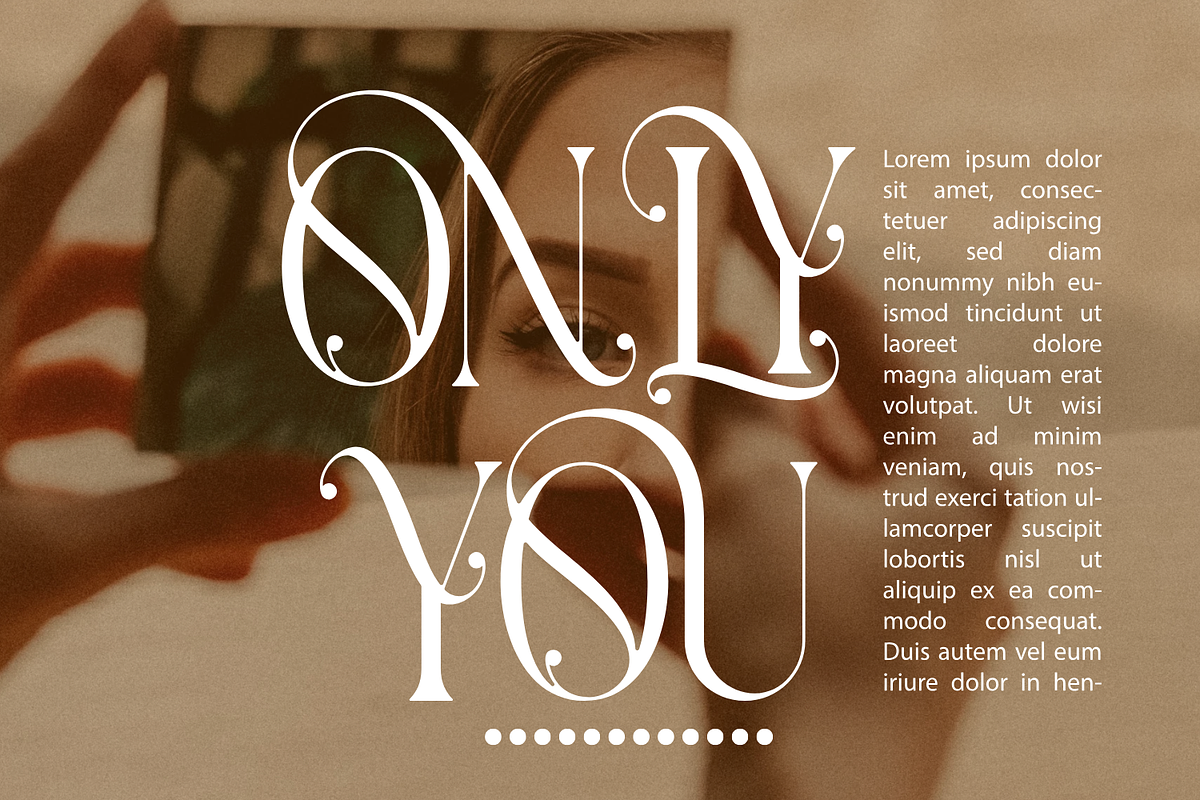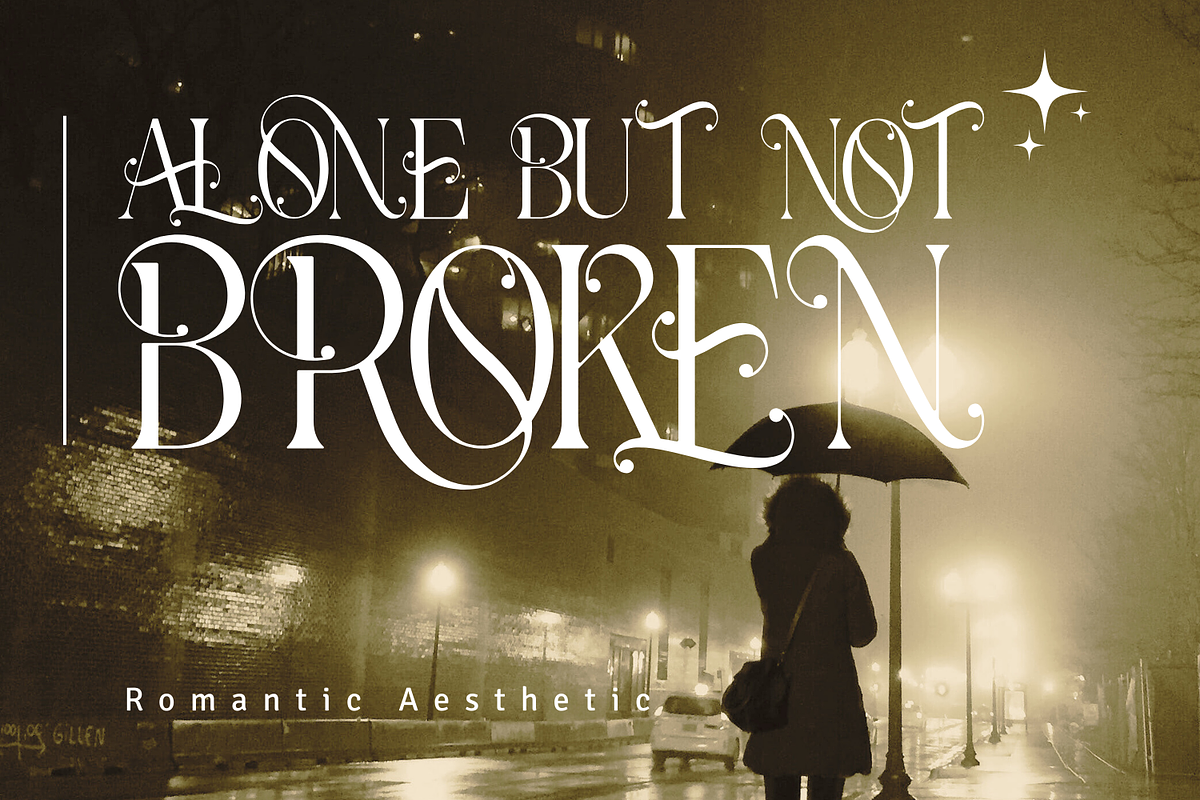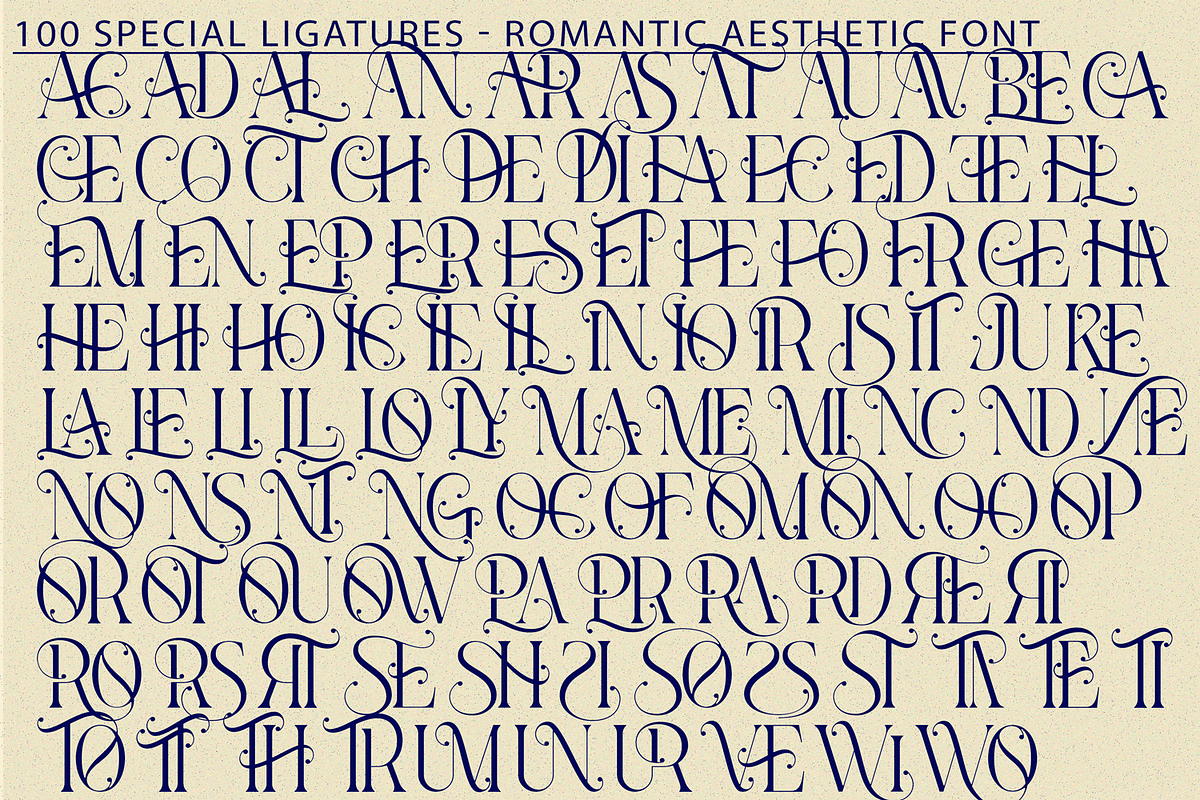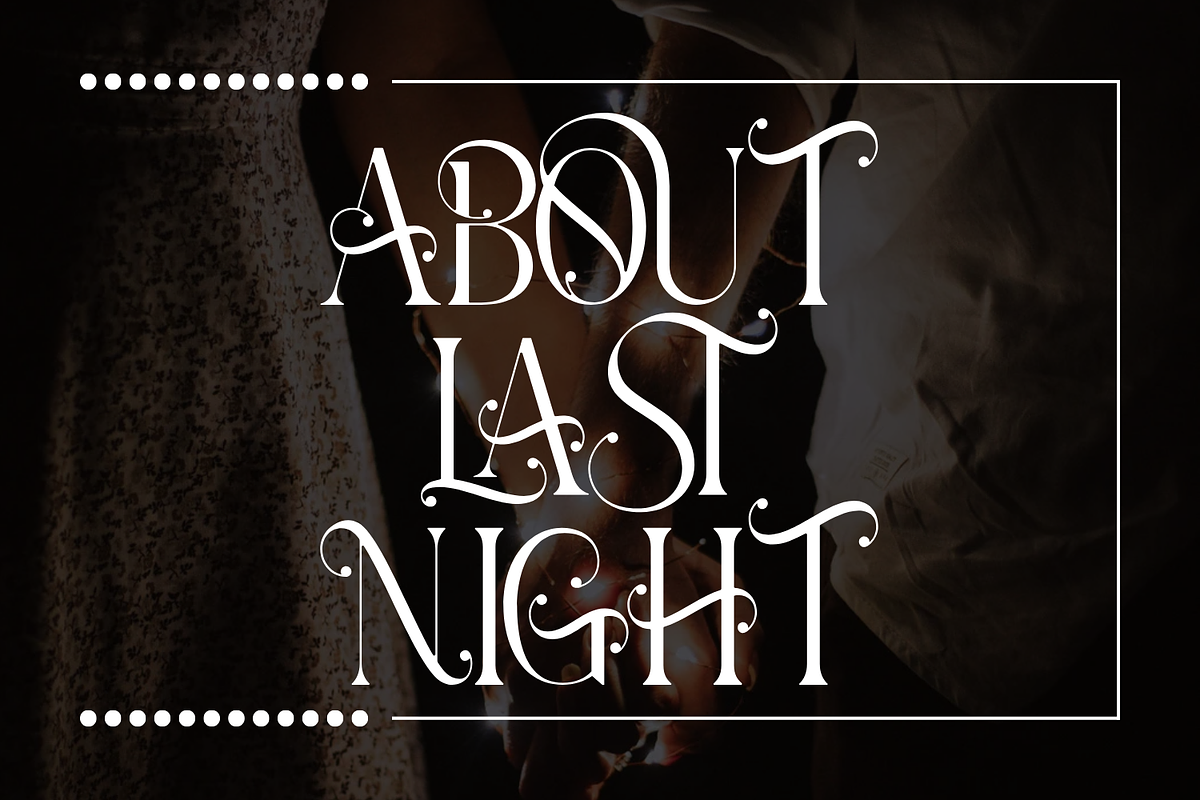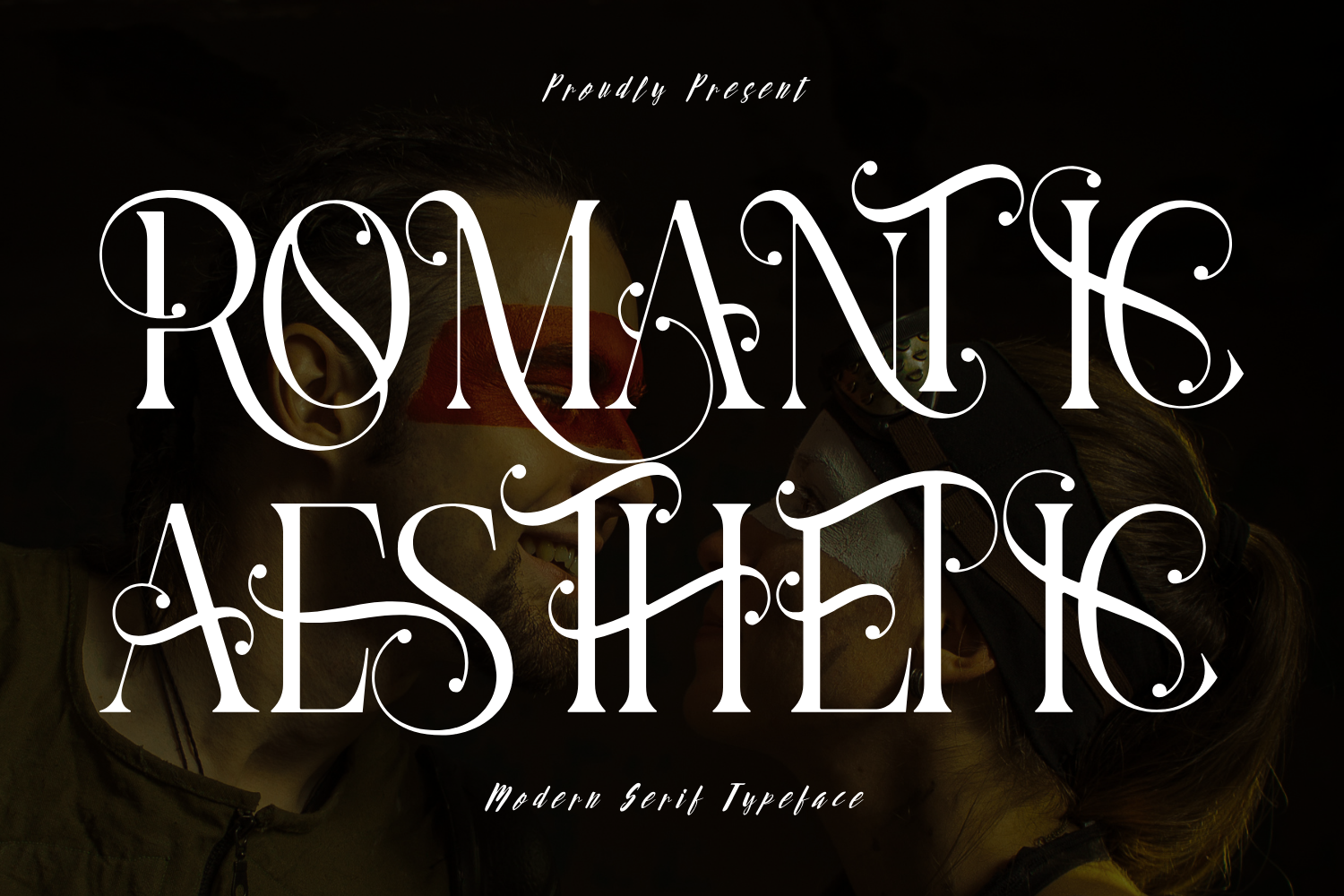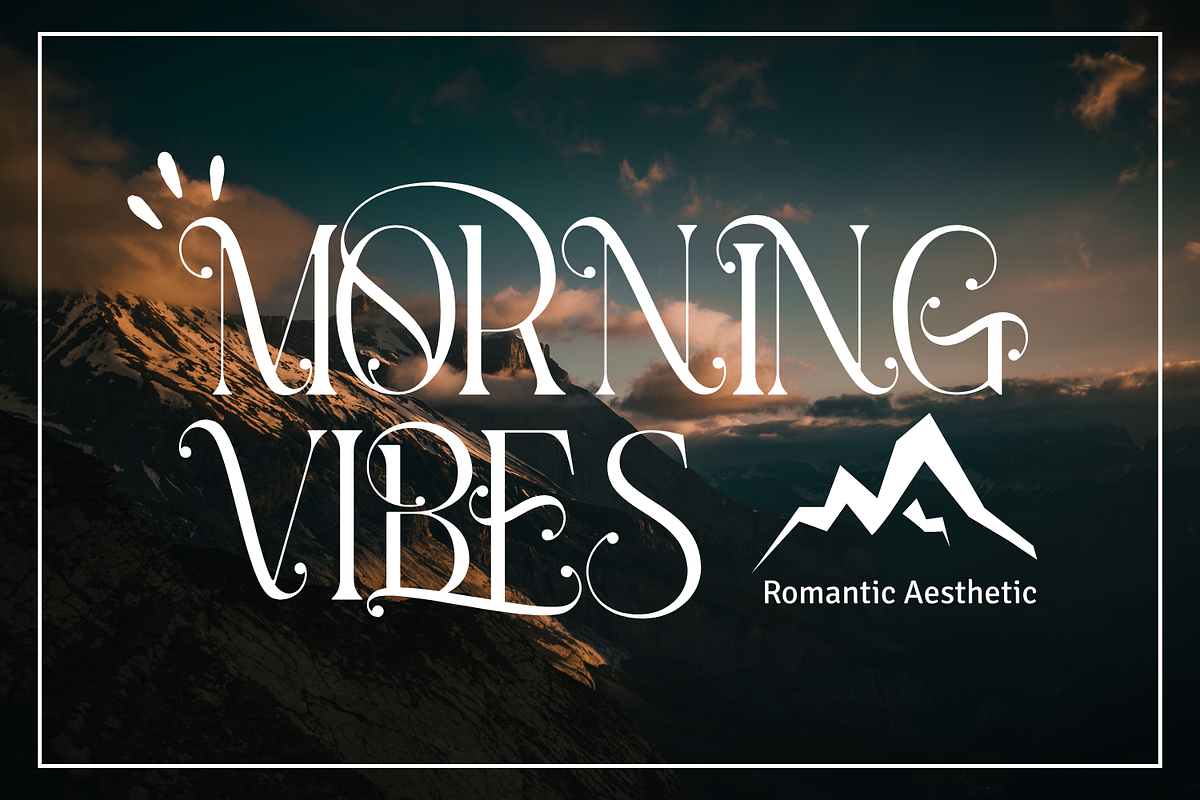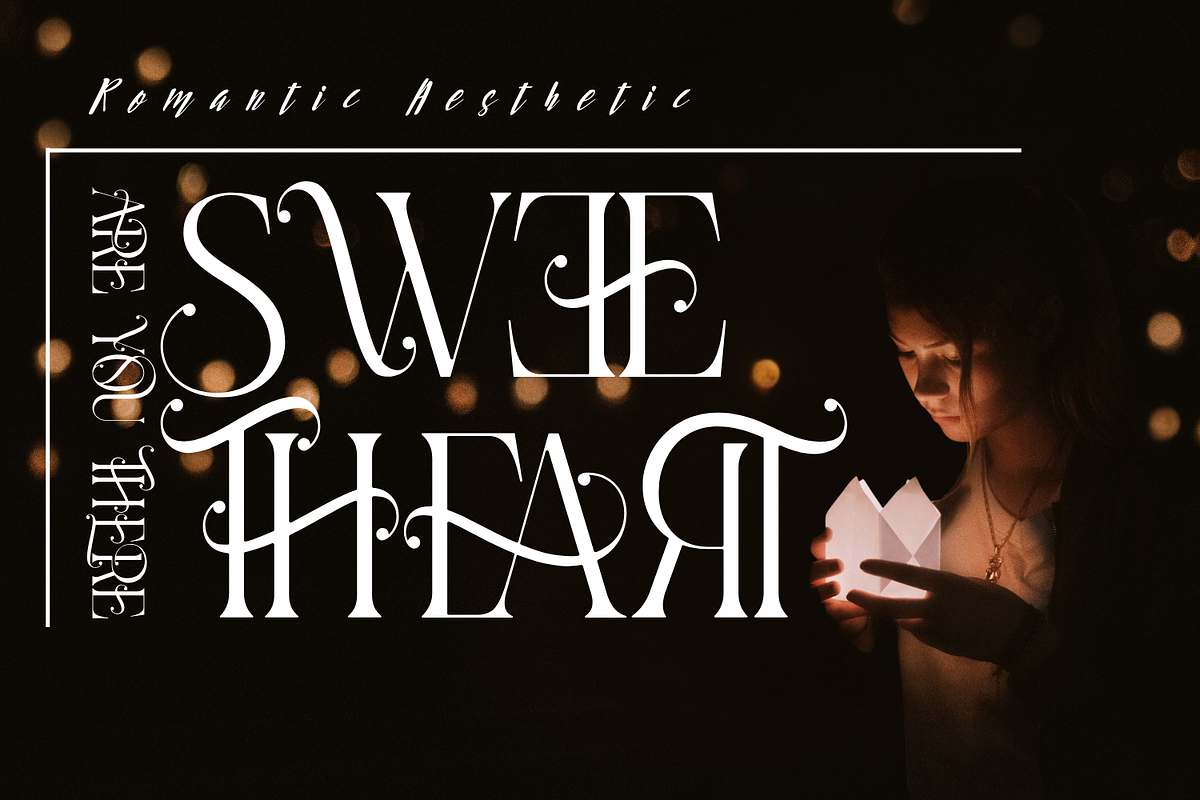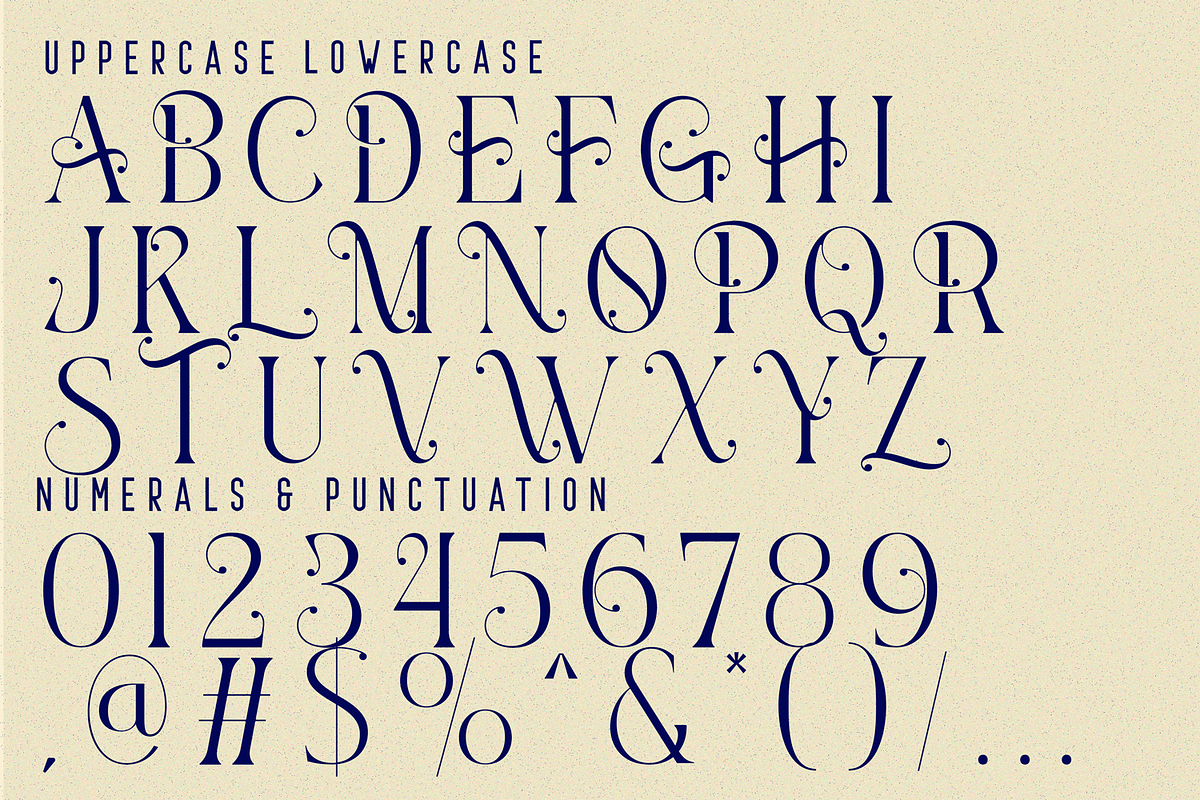
Romantic Aesthetic - Luxury Font
Romantic Aesthetic - Luxury Font – Romantic Aesthetic Display Serif, a romantic and expressive high-contrast serif display font that blends classical elegance with dramatic flair. With its intricate swashes, flourished terminals, and graceful curves, this typeface evokes timeless beauty and sophistication.
Perfect for projects that seek a blend of boldness and charm — from editorial headlines and wedding invitations to luxury branding and fashion campaigns.
- Uppercase Letters
- 100+ Refined Ligatures and Stylistic Alternates
- Multilingual Accented Characters
- Ideal for Romantic Branding, Book Covers, Packaging, Posters, and Editorials
About 100 ligatures combined with Stylistic Alternates Font:
AC AD AL AN AR AS AT AU AV BE CA CE CH CO CT DE DI EA EC ED EE EL EM EN EP ER ES ET FE FO FR GE HA HE HI HO IE IC IL IN IO IR IS IT JU KE LA LE LI LL LO LY MA ME MI NC ND NE NG NO NT NS OC OF OM ON OO OP OR OT OU OW PA PR RA RD RE RI RO RS RT SE SH SI SO SS ST TA TE TH TI TO TR TT UM UN UR VE WI WO